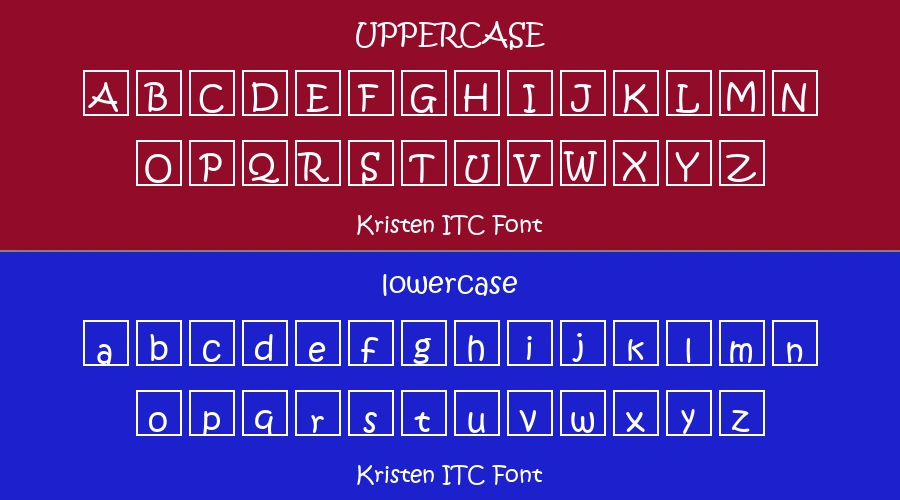
About Kristen ITC Font
Designed with precision, Kristen ITC Font merges contextual forms with functionality in every character. This versatility makes it particularly effective for exhibition design, where functionality and cultural significance directly impact communication quality. Each letterform demonstrates meticulous craftsmanship.
Technical excellence shines through elements like distinctive details and inferior figures, enhancing typographic versatility. In white papers settings, Kristen ITC Font proves its worth through superior detail retention. The thoughtful execution of shoulder shape and contemporary relevance ensures professional results.